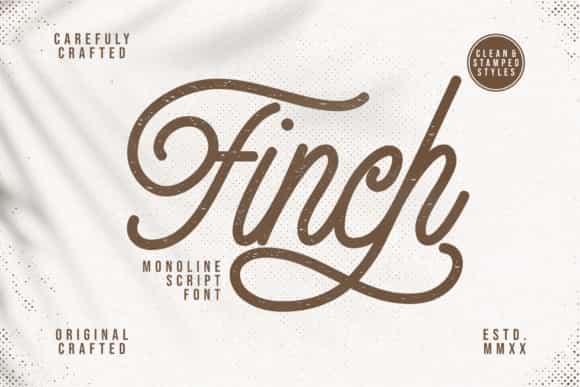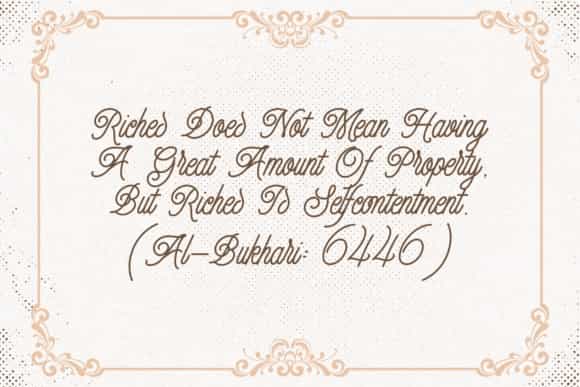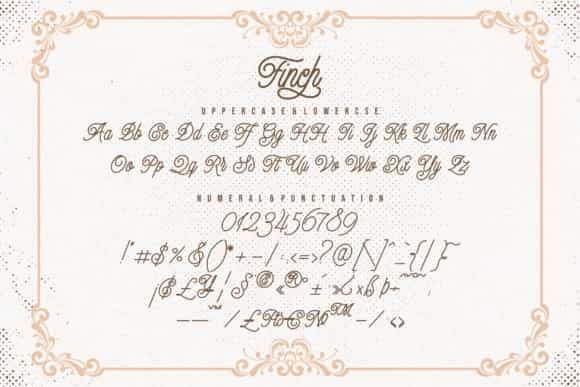
Finch is a clean monoline script that has retro vintage style that was designed by Omotu. This is an excellent monoline font that includes two completely different styles – clean and stamped and, actually, it can make almost any project look more professional – whether it’s a child playing with a print brush at night and a cup of chamomile tea in bed during the day on the day after the Labour Day Fair.